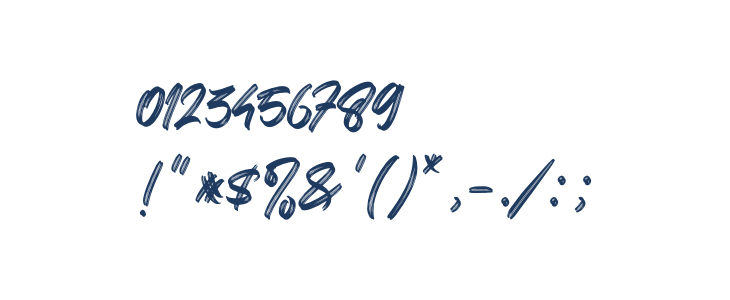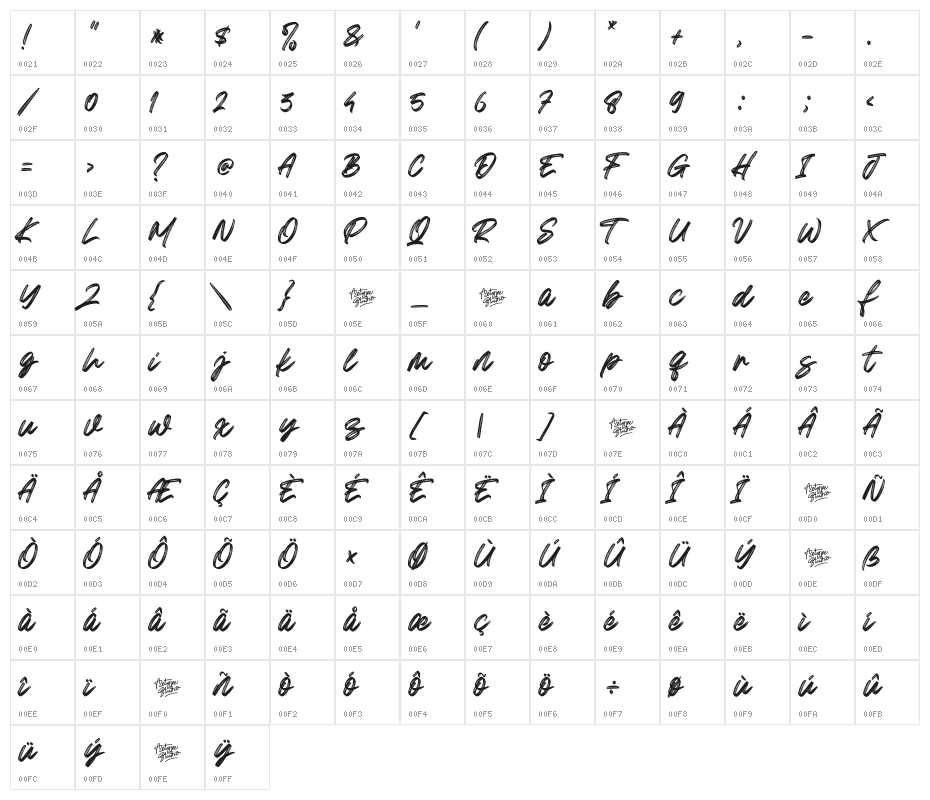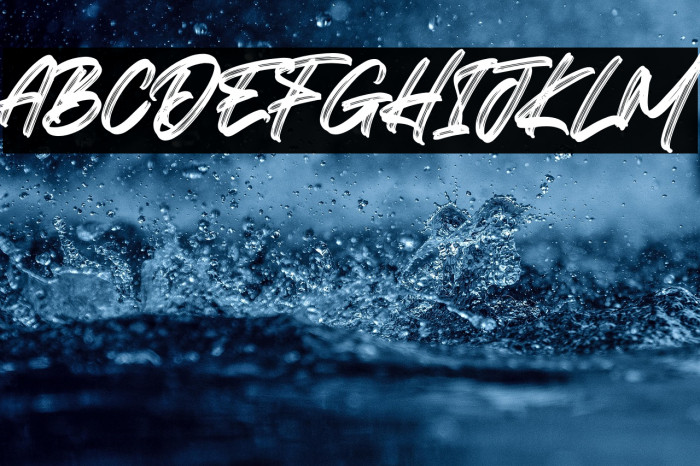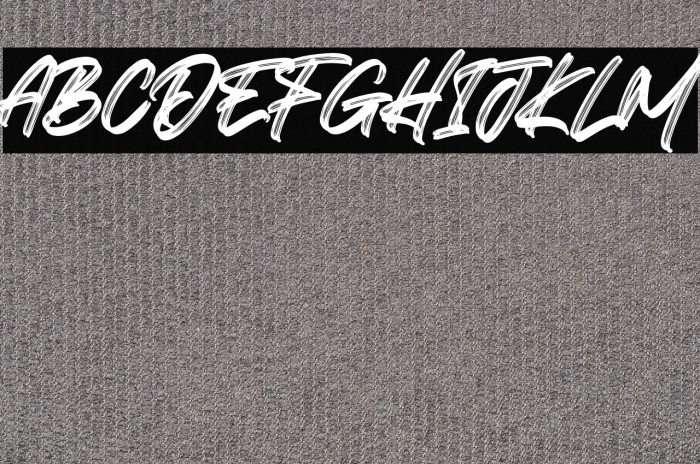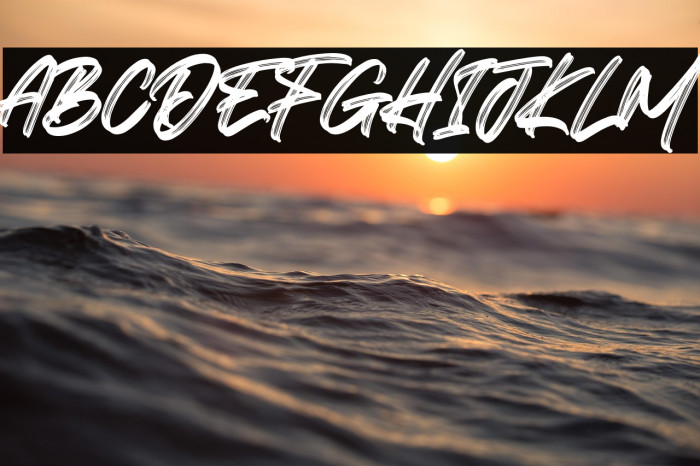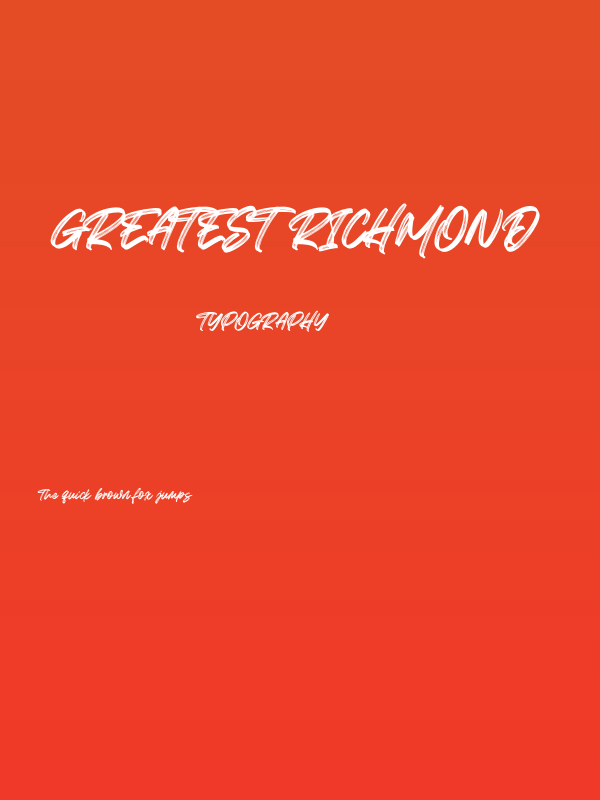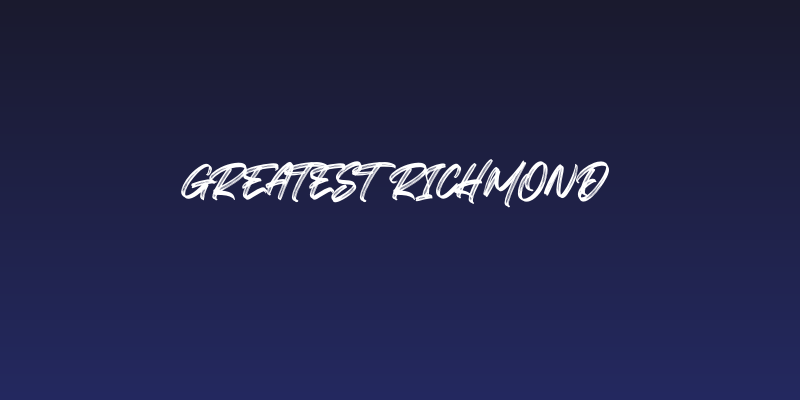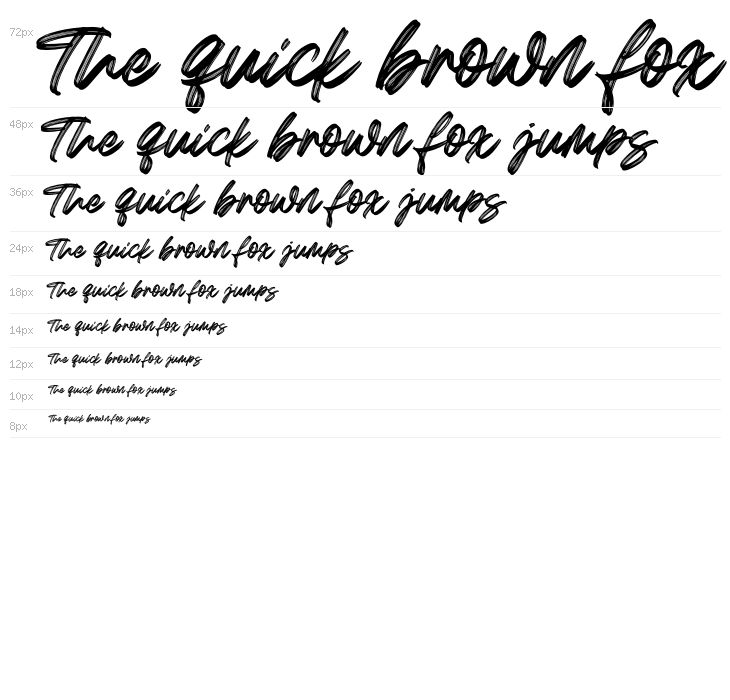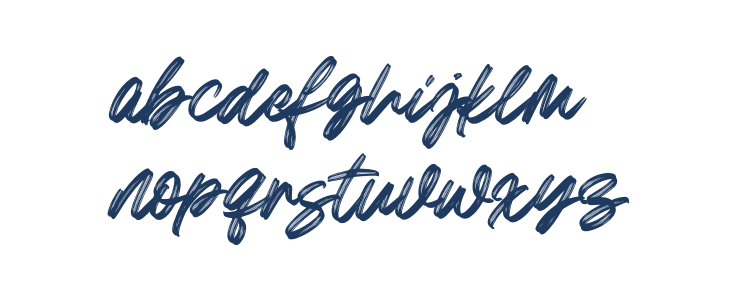
Greatest Richmond Font
Greatest Richmond Description
This font exudes a bold and expressive handwritten style, characterized by its dynamic and fluid strokes. The letters are crafted with a brush-like texture, giving them a lively and energetic appearance. The uppercase and lowercase letters maintain a consistent flow, while the numbers and special characters complement the overall aesthetic. The font's design is both artistic and modern, making it suitable for creative projects that require a personal touch. Its unique style stands out, making it ideal for eye-catching designs.
| Overall Style | Modern, Artistic |
| Proposed Projects | Ideal for branding, logos, posters, invitations, and social media graphics. |